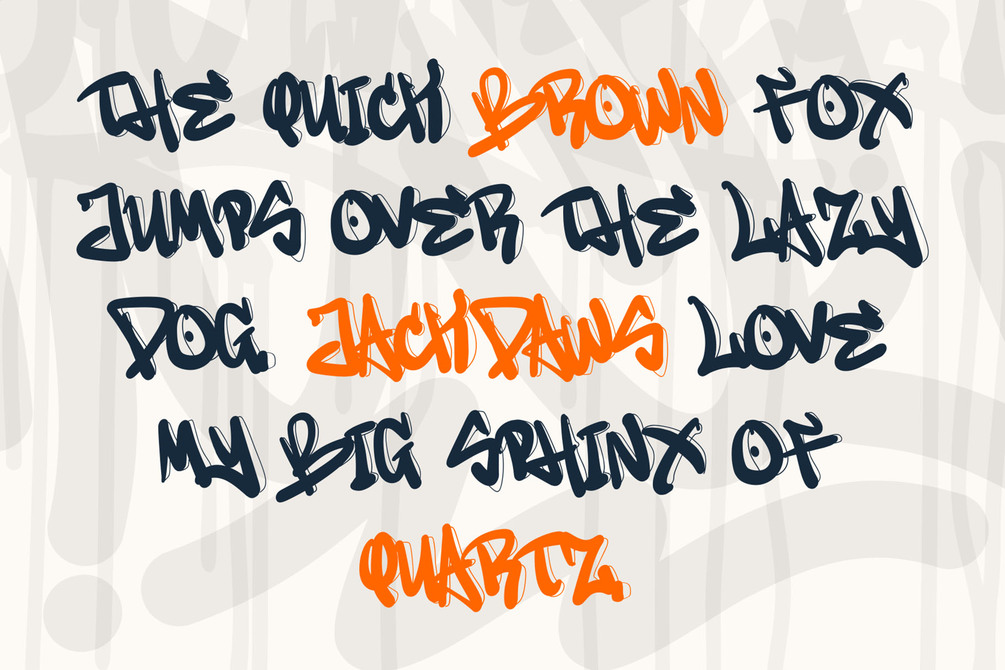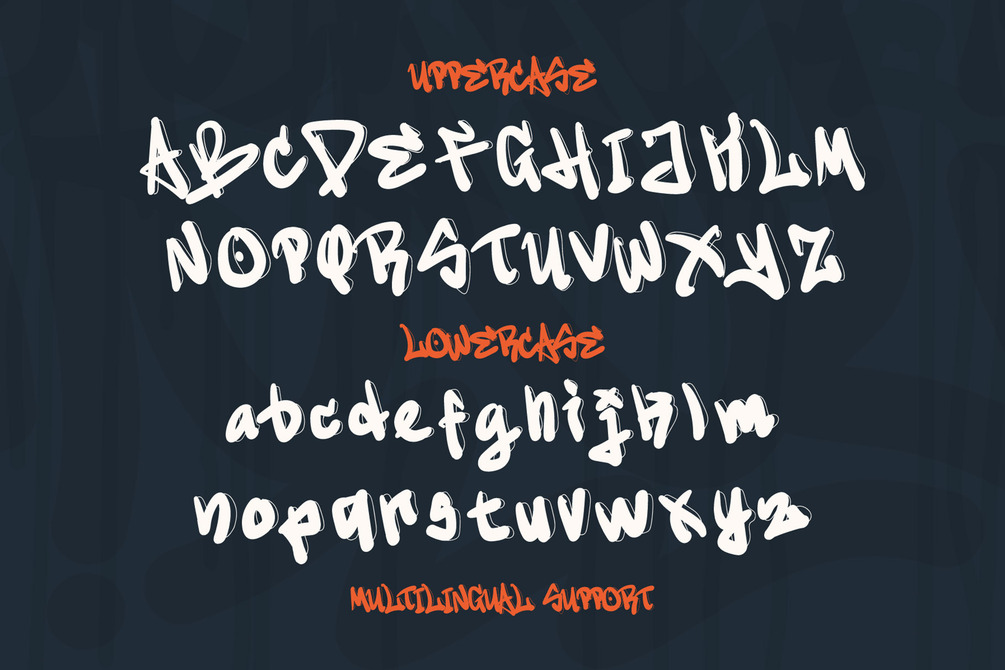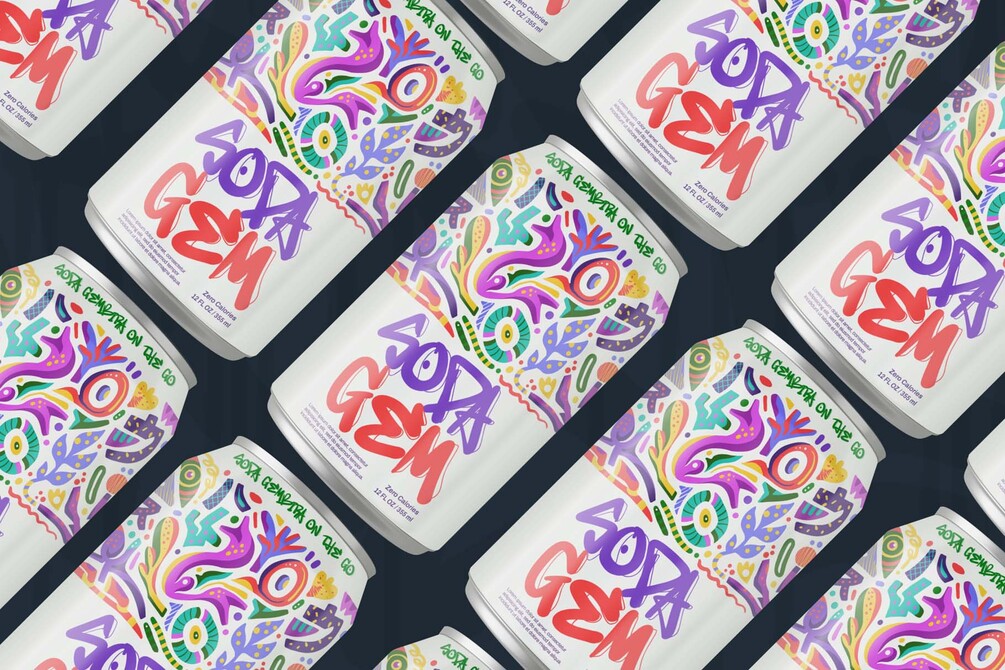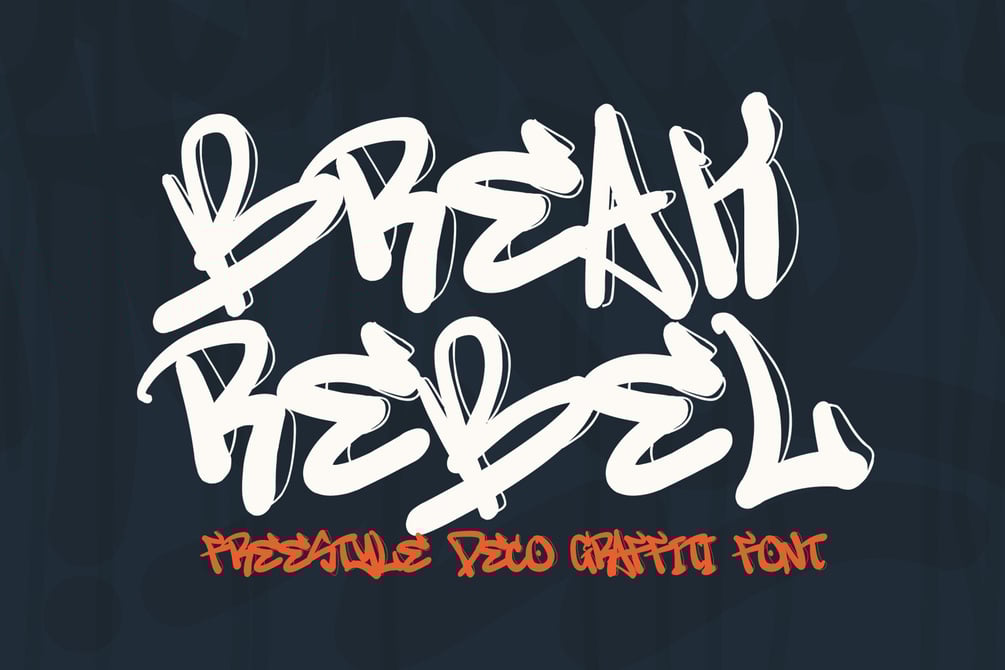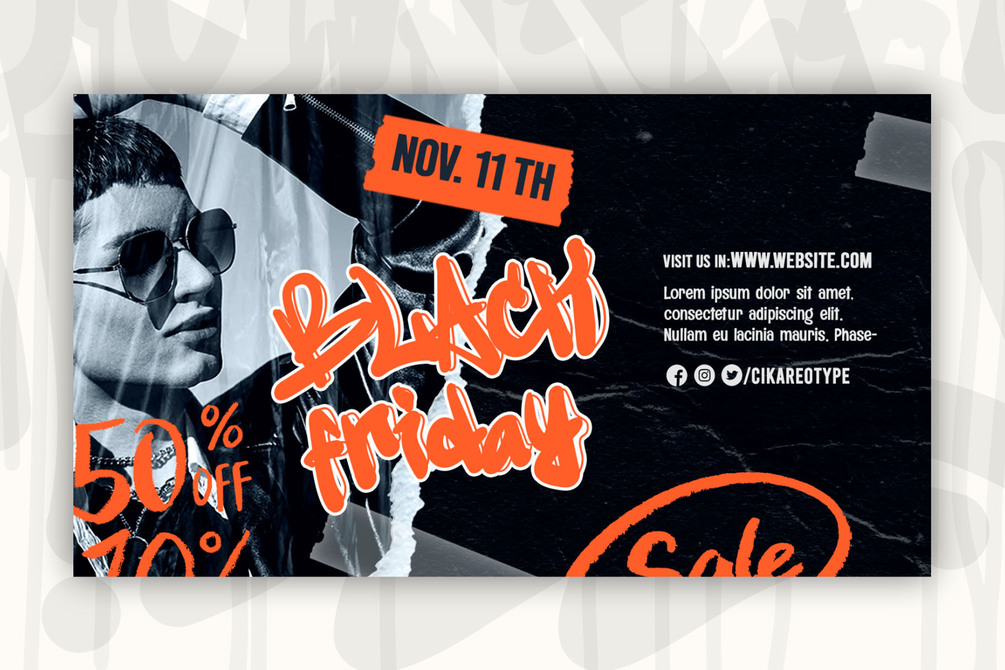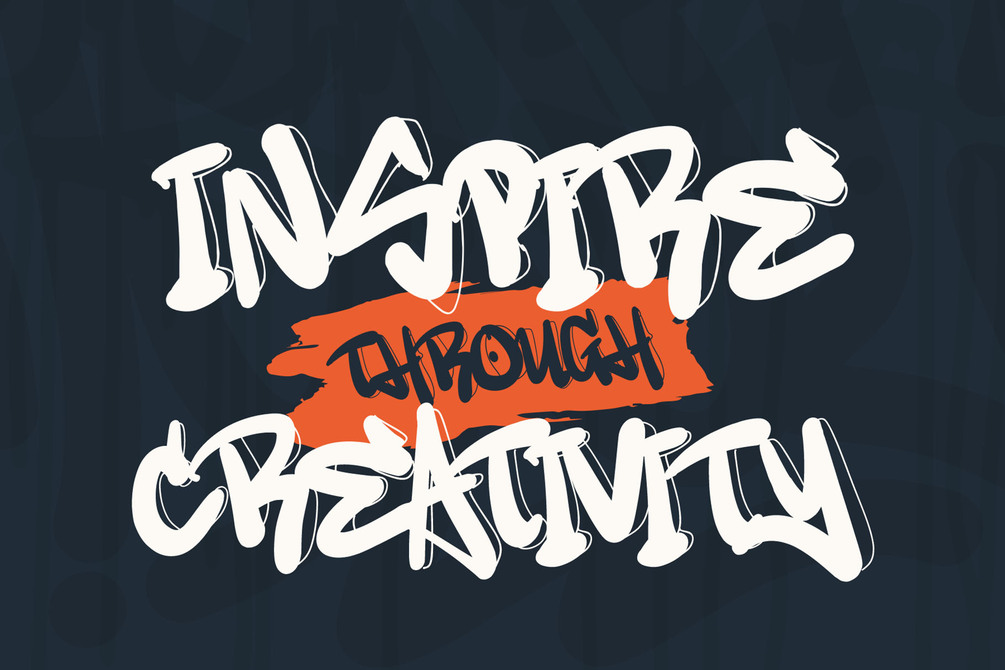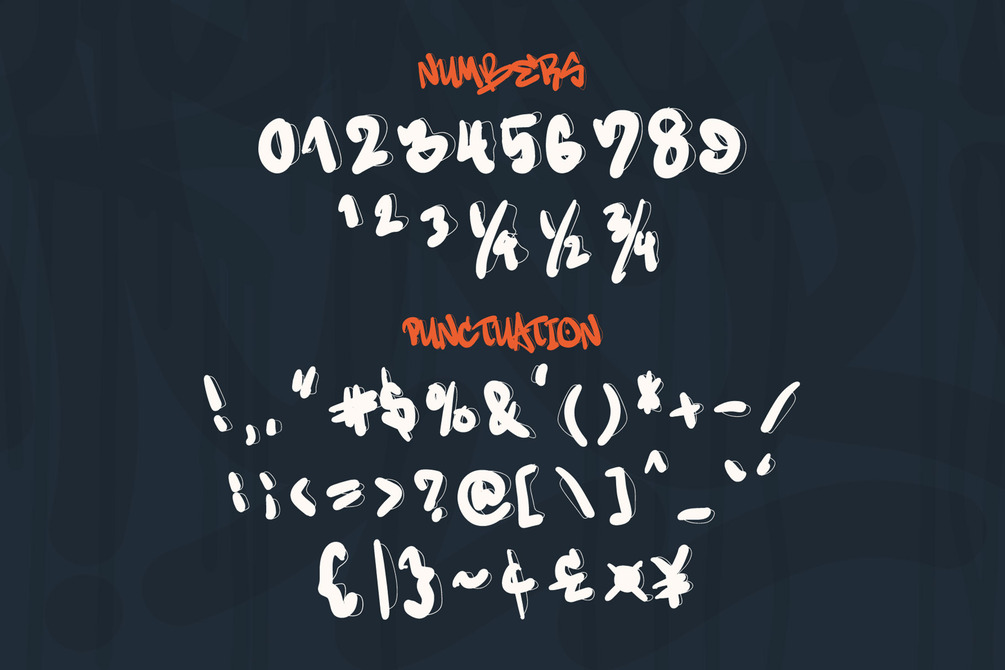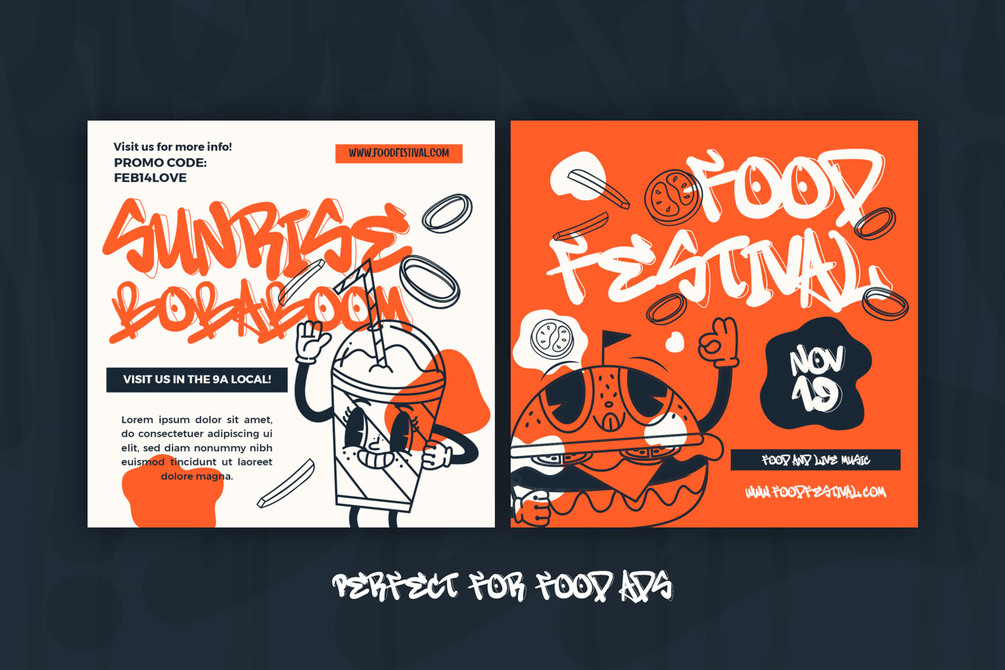
Break Rebel is a dynamic freestyle decorative graffiti font that embodies the raw energy of natural street style. With its handcrafted look and unique thin decorative accents on every letter, this font exudes a rebellious and creative spirit. Its freestyle design makes it versatile for a wide range of projects, allowing you to infuse your work with an urban, edgy vibe. Whether you're designing streetwear apparel, creating impactful posters, branding bold projects, or working on digital art with an urban aesthetic, Break Rebel adds authenticity and personality to your designs. Its natural street character paired with subtle decorative touches makes it stand out, providing the perfect balance between raw expression and stylish detail. Bring your designs to life with Break Rebel and make a statement that's impossible to ignore.
Features
• Uppercase, Lowercase, Number and Punctuation
• Multilingual Support
• Versatile for branding, headline, or printing product
Unleash your creativity with Break Rebels! 💥 Make your designs pop with powerful graffiti vibes and bold 3D layers. Grab it now and bring urban flair to your next project!